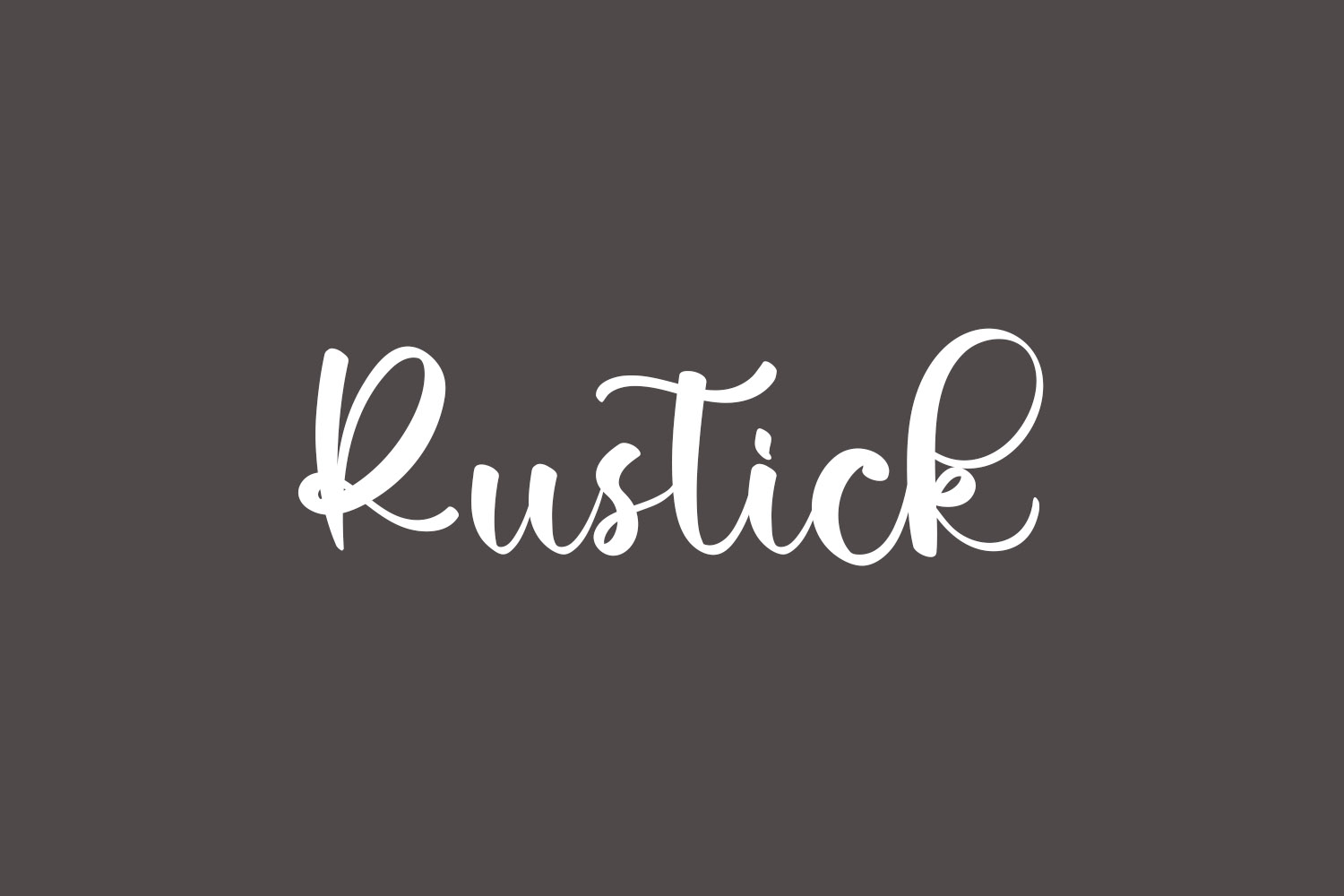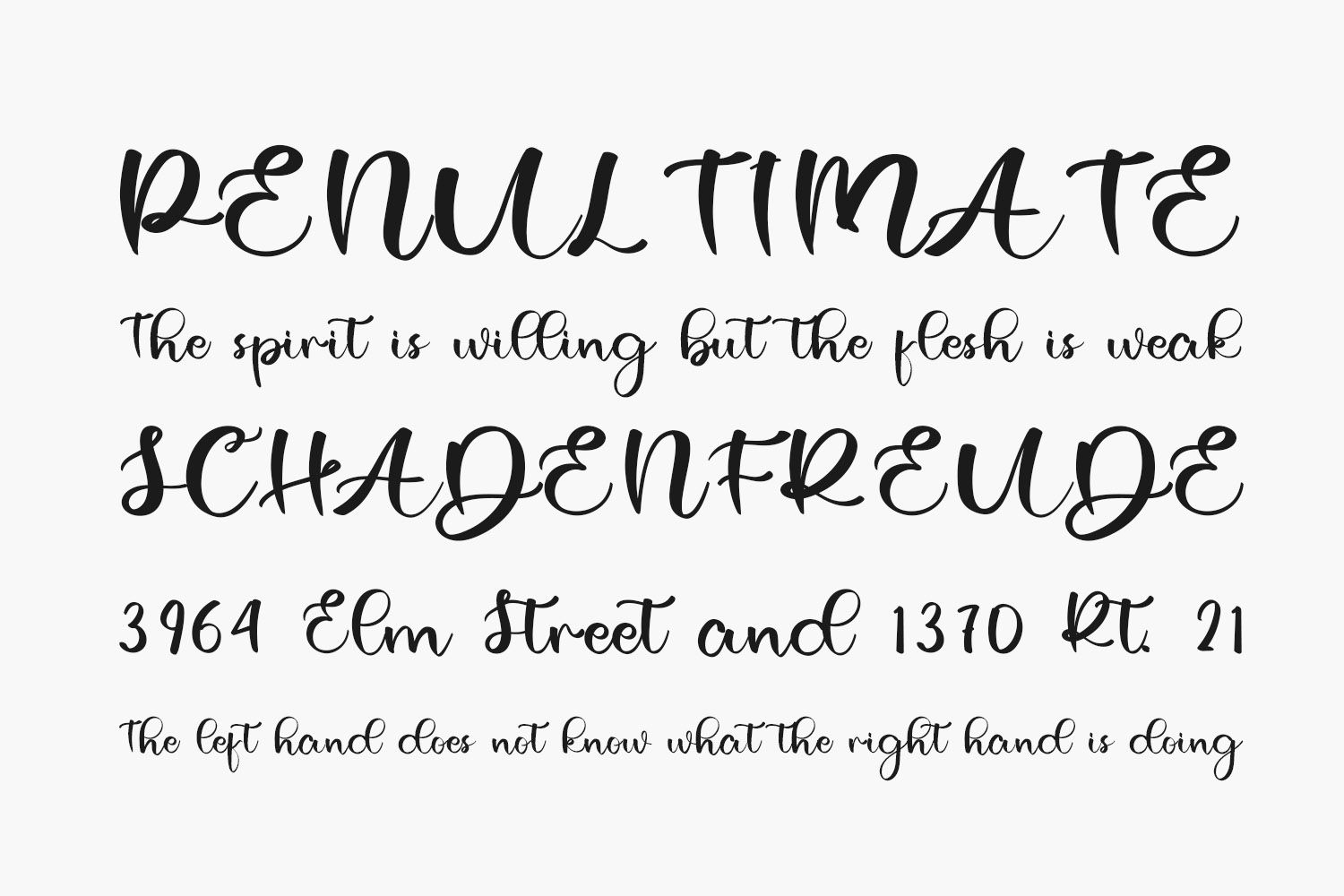
Rustick Free Font exudes a charming and exquisite handcrafted font characterized by its graceful aesthetics, making it ideal for your cherished projects. Embrace its uniquely distinct and enduring style, letting it elevate your designs to a spectacular level. Rustick Free Font is free for personal use only. Please purchase the full version for commercial use.